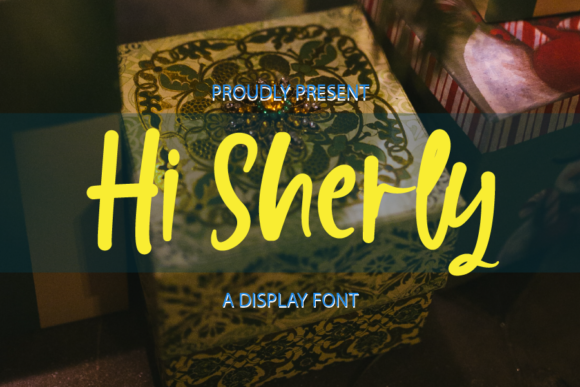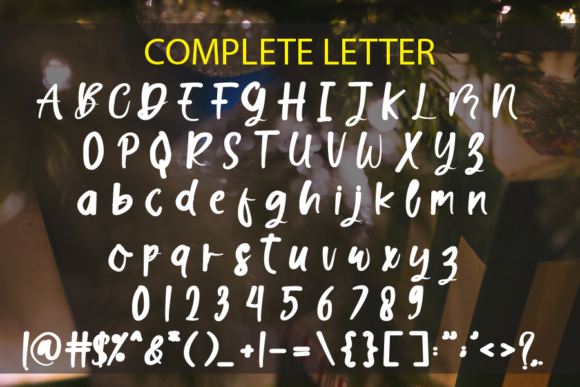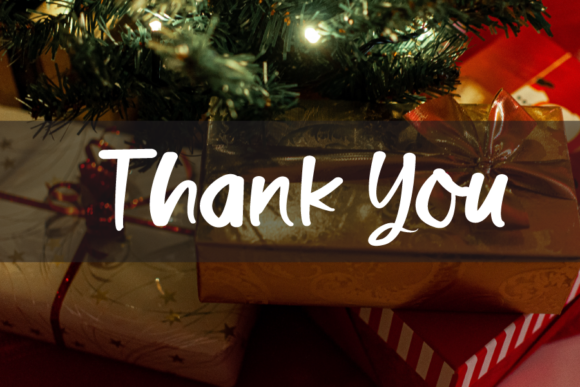
About Hi Sherly Font
Hi Sherly is a neat and cursive handwritten font. Incredibly versatile, this font fits a wide pool of designs, elevating them to the highest levels. Add this font to your favorite creative ideas and notice how it makes them come alive!